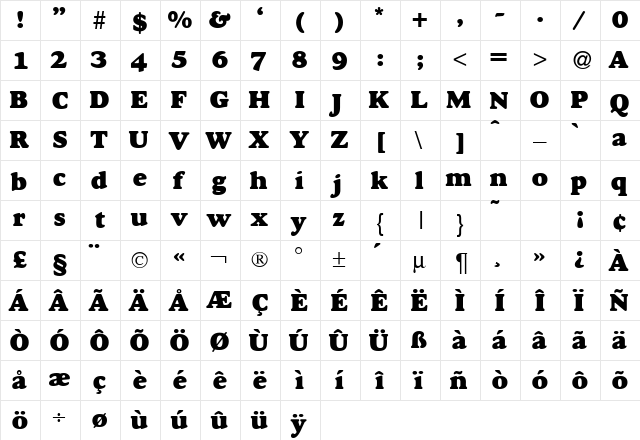
GourmetHeavyDB Normal
Design Context for GourmetHeavyDB Typeface
GourmetHeavyDB is a composed and adaptable typeface that performs quietly and consistently across a wide range of design contexts.
Pro Tip: Use GourmetHeavyDB in both headline and body roles to test its range before committing to a single application.